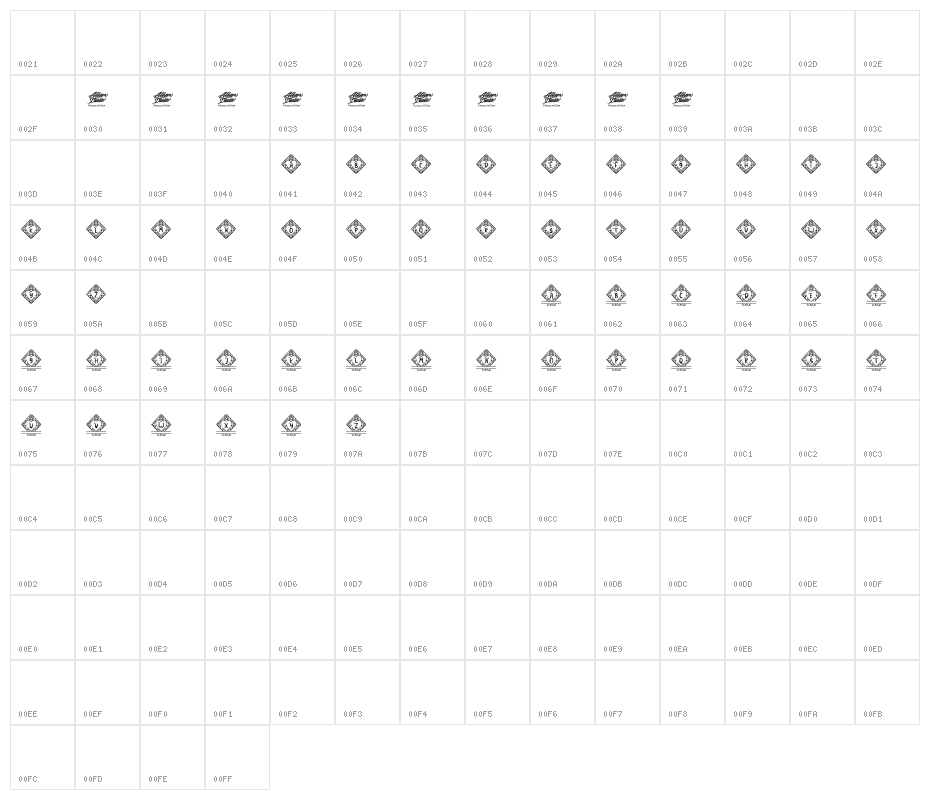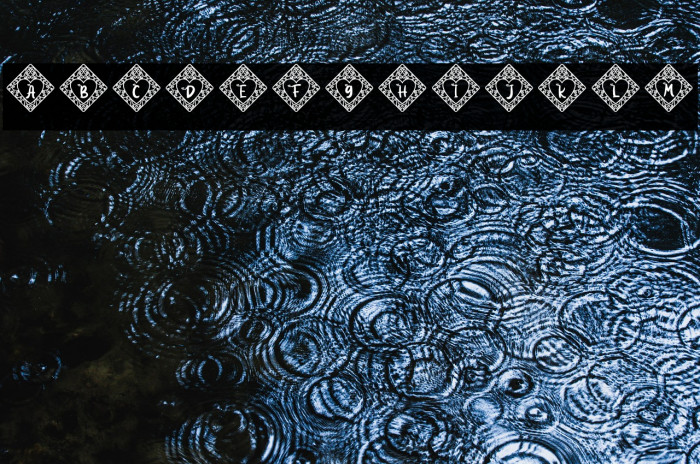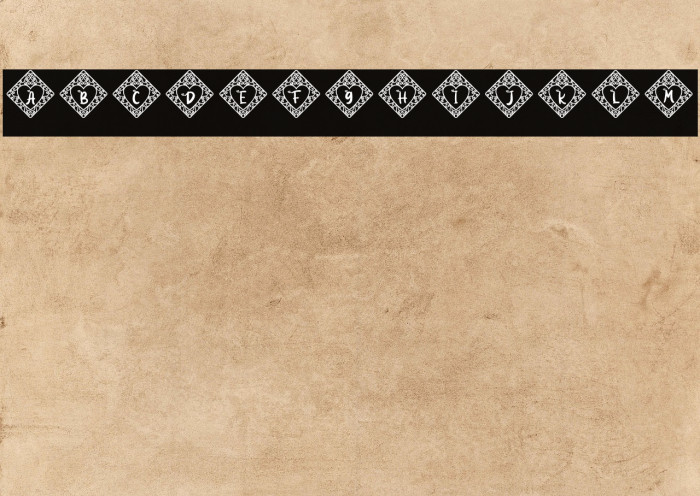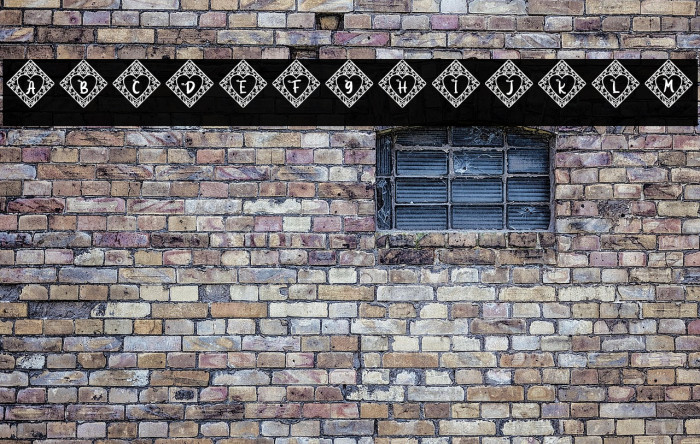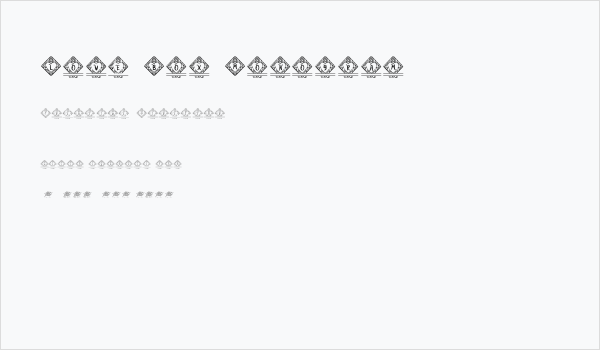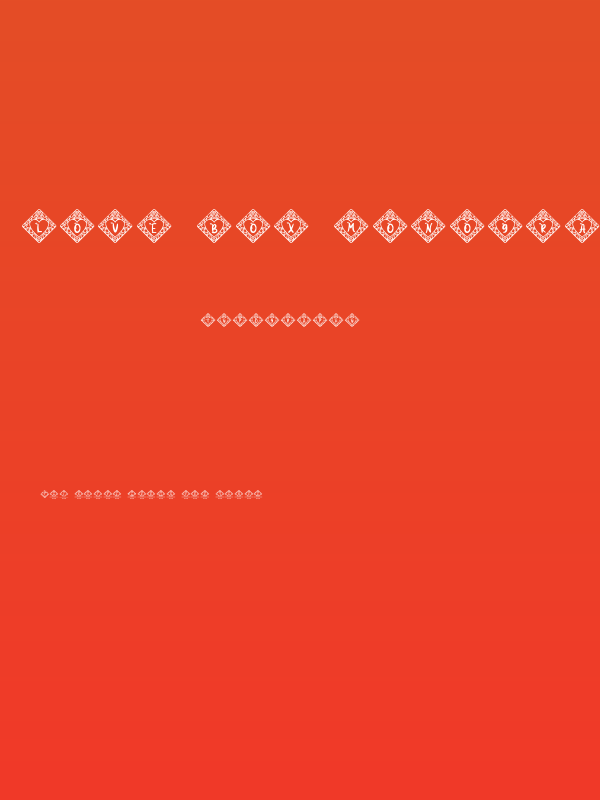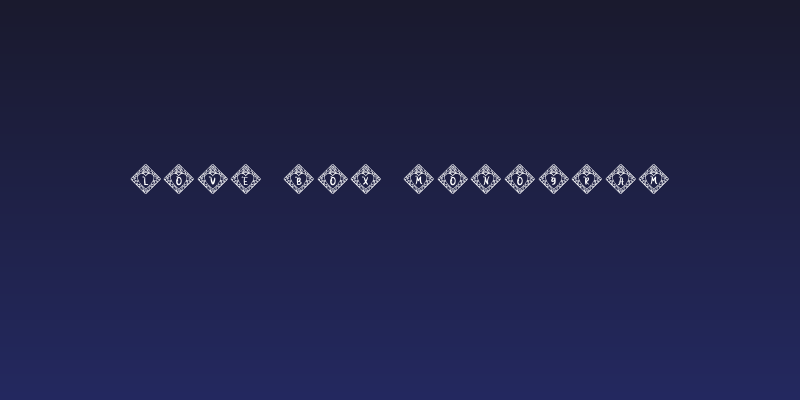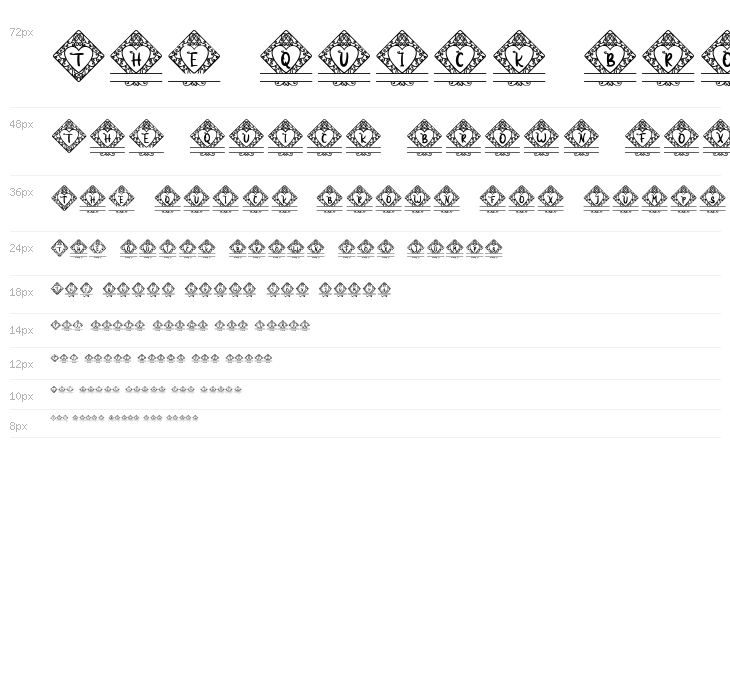
Love Box Monogram Font
Love Box Monogram Description
This font features an ornate and decorative style, with each letter encapsulated within a diamond-shaped frame. The intricate design includes floral and geometric patterns that give it a luxurious and sophisticated appearance. The uppercase letters are prominently displayed, making them ideal for monograms or initials. The font's unique aesthetic is perfect for projects that require a touch of elegance and refinement. The detailed embellishments around each character create a sense of grandeur and opulence, suitable for formal invitations, branding, and high-end product packaging.
| Use Case | Logos, Headlines, Monograms |
| Proposed Projects | Perfect for wedding invitations, luxury branding, monogram designs, and high-end packaging. |